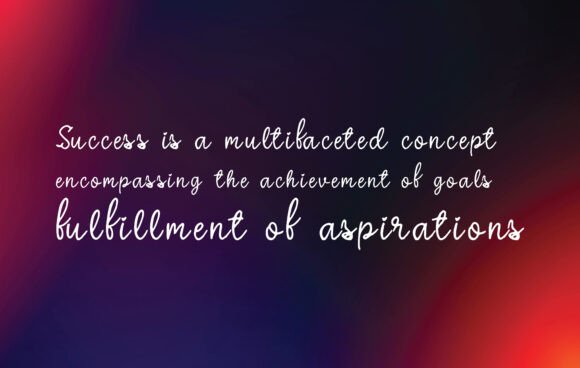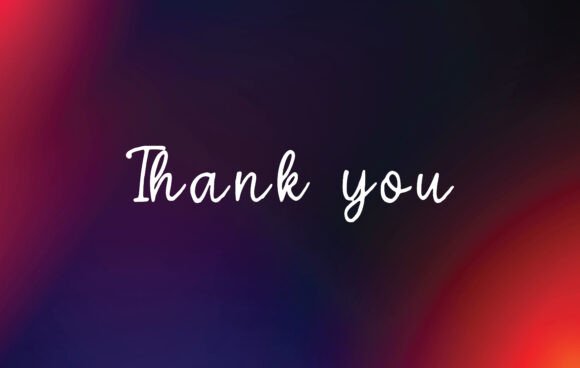
Fritillary Font: Elevate Your Creative Projects with this Lovely Handwritten Font
Are you a designer or crafter looking for a unique and beautiful font to take your creative projects to the next level? Look no further than Fritillary Font! This lovely handwritten font is perfect for creating eye-catching logos, branding, and quotes that will leave a lasting impression on your audience.
What is Fritillary Font?
Fritillary Font is a carefully crafted handwritten font that exudes elegance and sophistication. Its beautiful lettering and flowing curves make it perfect for a wide range of creative projects, from logos and branding to quotes and social media graphics. With its unique and distinctive style, Fritillary Font is sure to set your projects apart from the rest.
Why Choose Fritillary Font?
So why choose Fritillary Font for your creative projects? Here are just a few reasons:
- Unique and Eye-Catching: Fritillary Font has a distinctive and eye-catching style that will grab the attention of your audience and leave a lasting impression.
- Perfect for Logos and Branding: With its elegant and sophisticated style, Fritillary Font is perfect for creating logos and branding materials that will help you establish a strong brand identity.
- Versatile: Fritillary Font can be used for a wide range of creative projects, from social media graphics and quotes to posters and flyers.
- Easy to Read: Despite its unique and decorative style, Fritillary Font is easy to read and understand, making it perfect for use in a variety of contexts.
How to Use Fritillary Font
Using Fritillary Font in your creative projects is easy! Here are a few tips to get you started:
- Pair it with Other Fonts: Fritillary Font pairs well with a variety of other fonts, so don’t be afraid to experiment and find the perfect combination for your project.
- Use it for Headings and Titles: Fritillary Font is perfect for use in headings and titles, where its unique and eye-catching style can really make an impact.
- Experiment with Colors and Textures: Fritillary Font looks great in a variety of colors and textures, so don’t be afraid to experiment and find the perfect look for your project.
Design Tips and Inspiration
Need some inspiration for your creative projects? Here are a few design tips and ideas to get you started:
- Keep it Simple: Don’t be afraid to keep things simple and clean when using Fritillary Font. A simple background and a clear message can really make your project stand out.
- Play with Contrast: Fritillary Font looks great when paired with contrasting colors and textures, so don’t be afraid to experiment and find the perfect combination for your project.
- Use it for Quotes and Social Media Graphics: Fritillary Font is perfect for use in quotes and social media graphics, where its unique and eye-catching style can really make an impact.